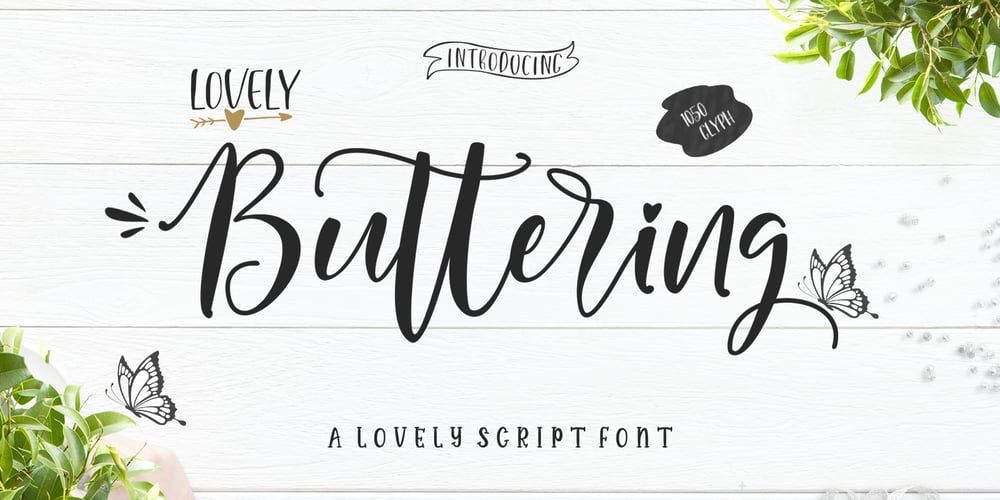
Lovely Buttering Script
Lovely Buttering Script font
Lovely Buttering Script Font Family was designed by Muhammad Fajar and published by Lucky Type. Lovely Buttering Script contains 1 styles and family package options. Allow me to introduce the Lovely Buttering script, which combines elements of informal, romantic, sweet, beautiful design, and hand-drawn typography design elements. Lovely Buttering script has 1000+ glyphs and 500+ alternative characters, including various language support. You can use this font for your work very easily because there are many features in it. Contains a complete set of upper and lower case letters, punctuation, numbers, and multilingual support. This font also includes several ligatures, alternative stylistic sets for those of you who have software that can work OpenType (Corel Draw / Photoshop / Illustrator / InDesign). Need help? If you need help or advice, please contact me through e-mail. Thank you for your purchase!